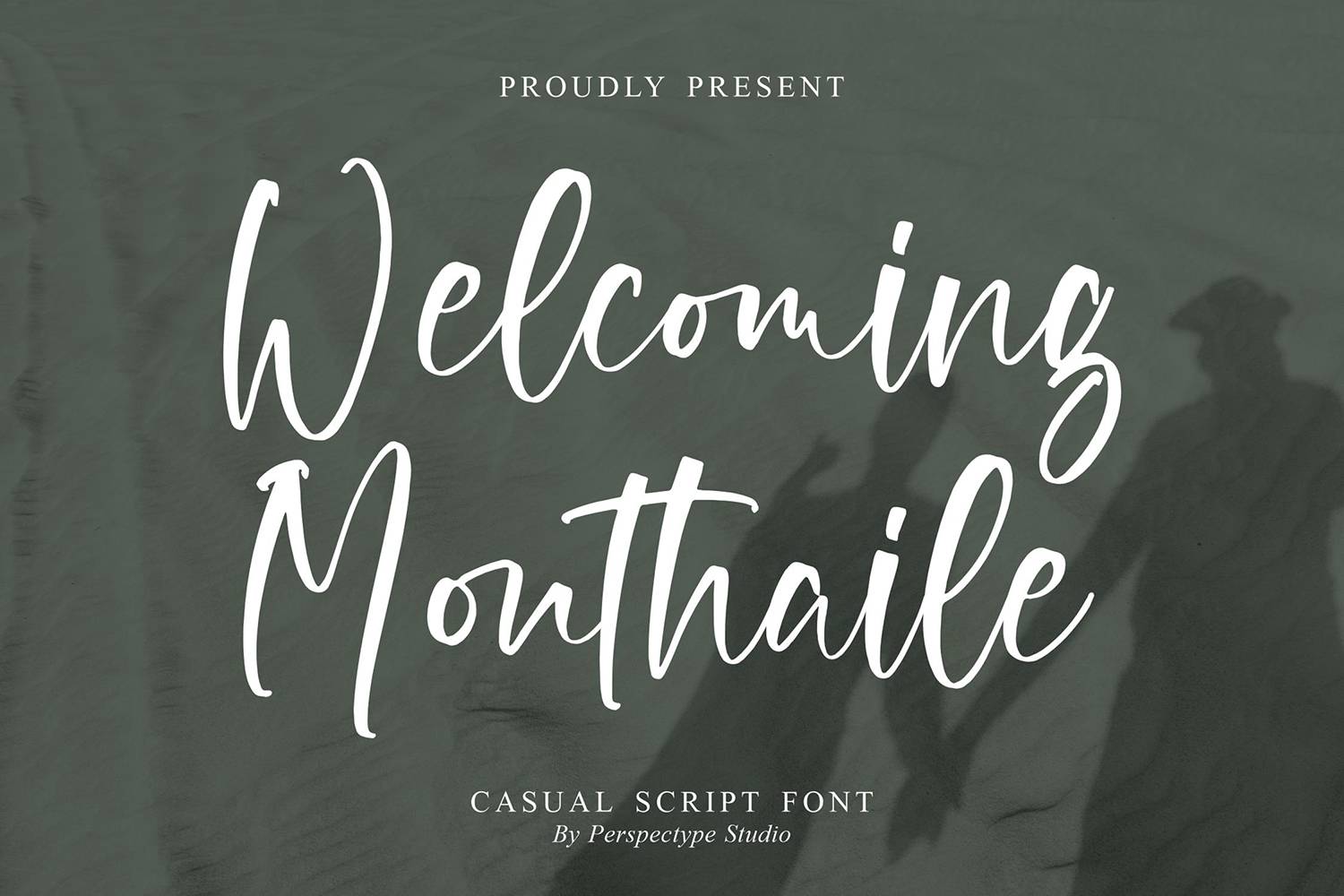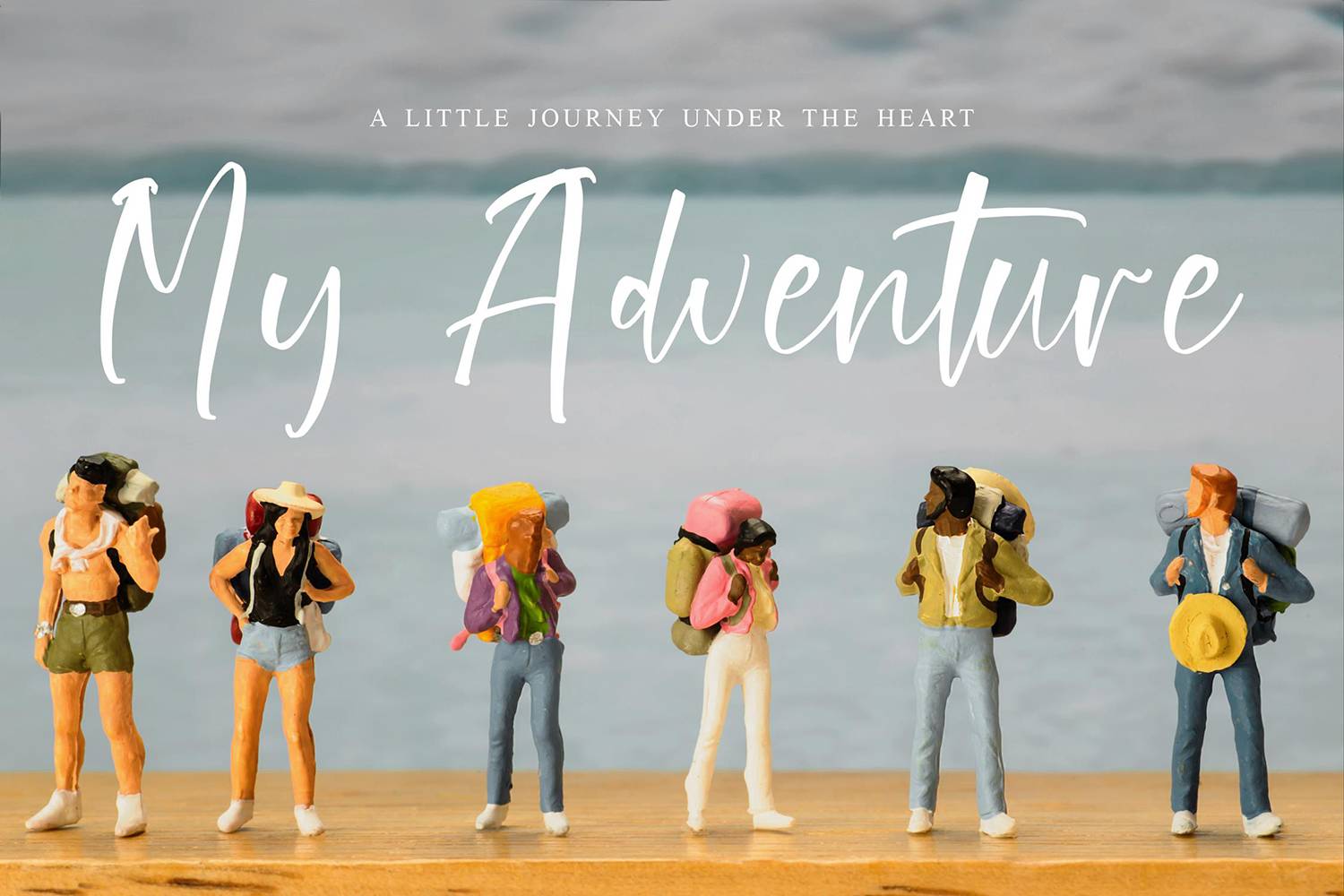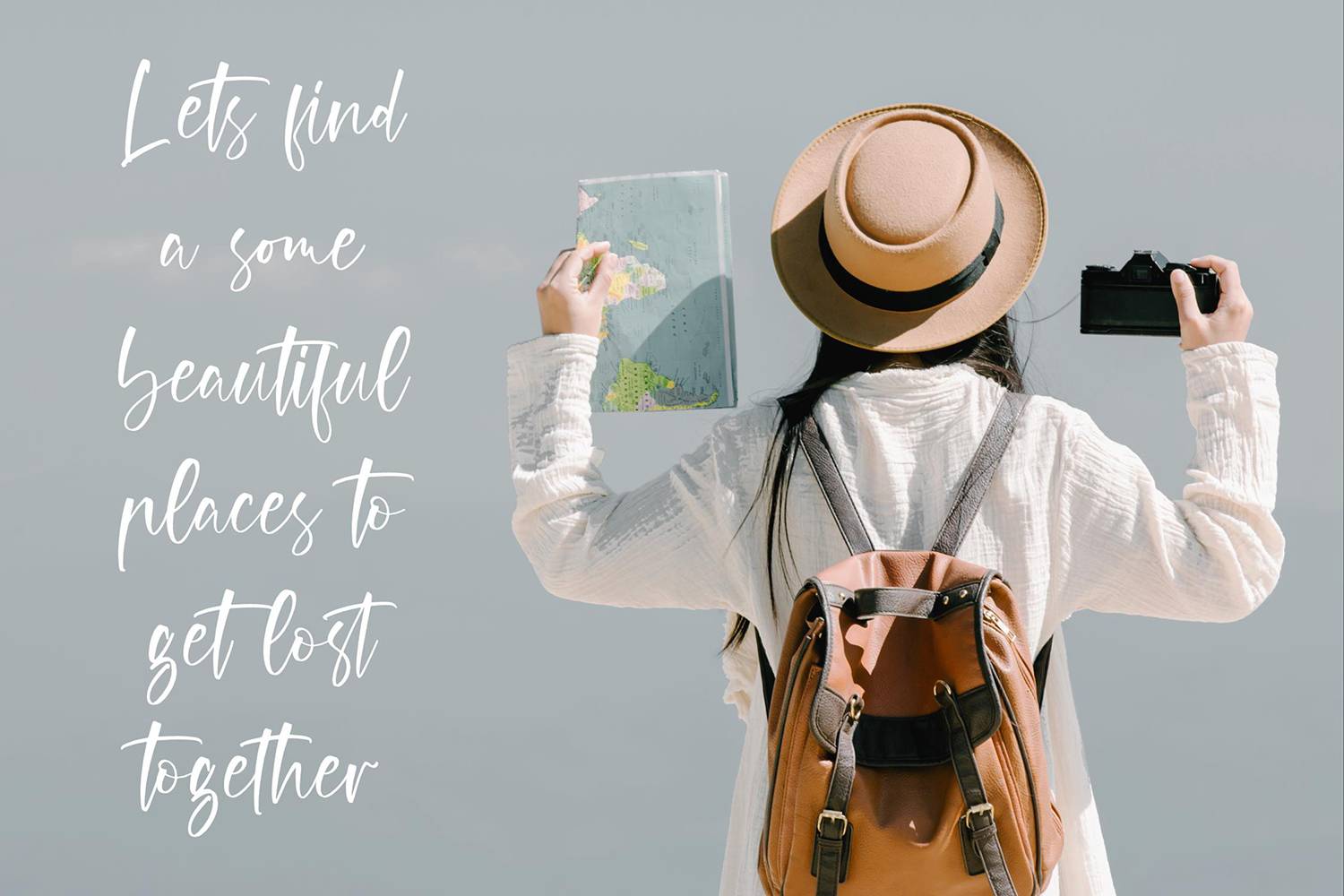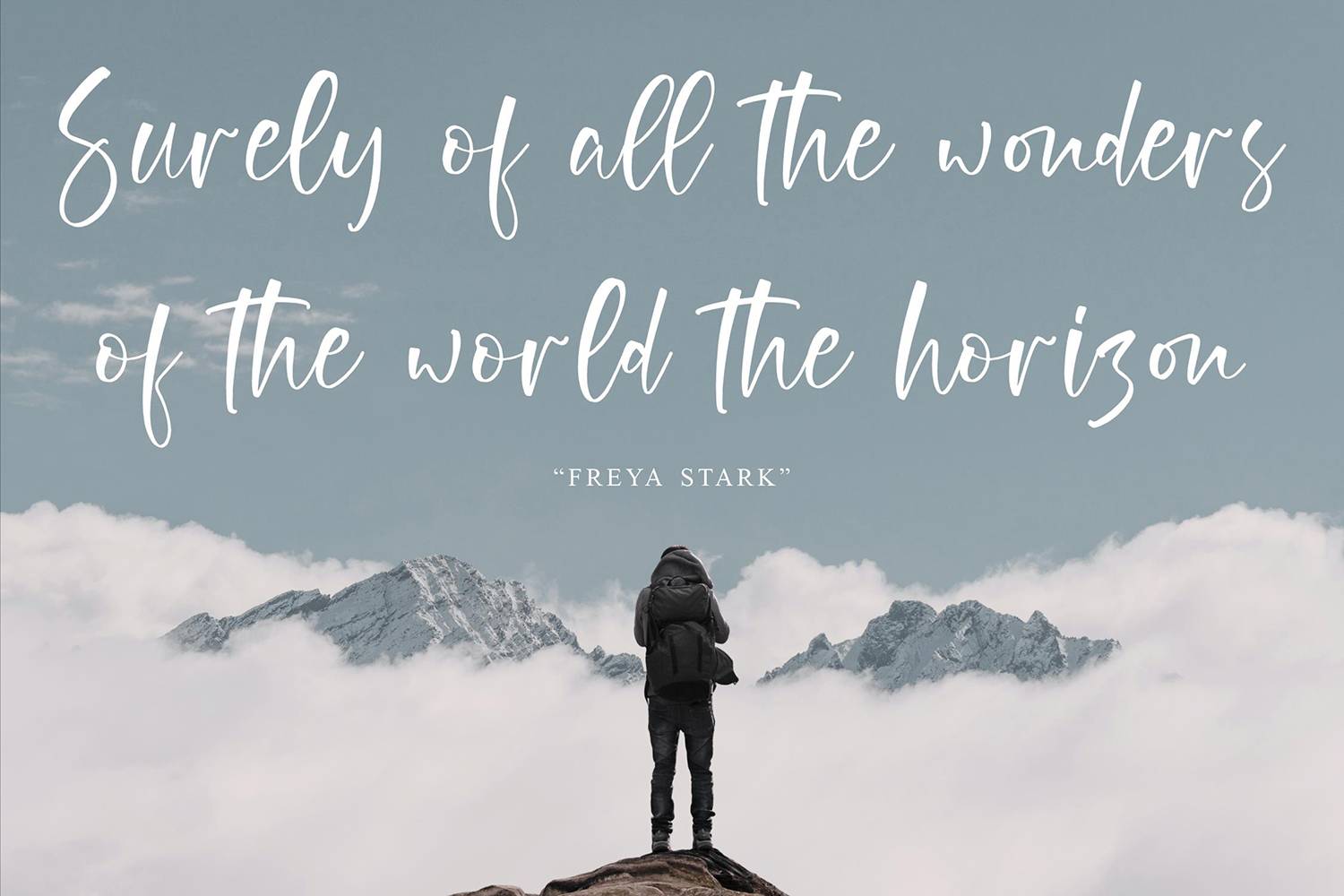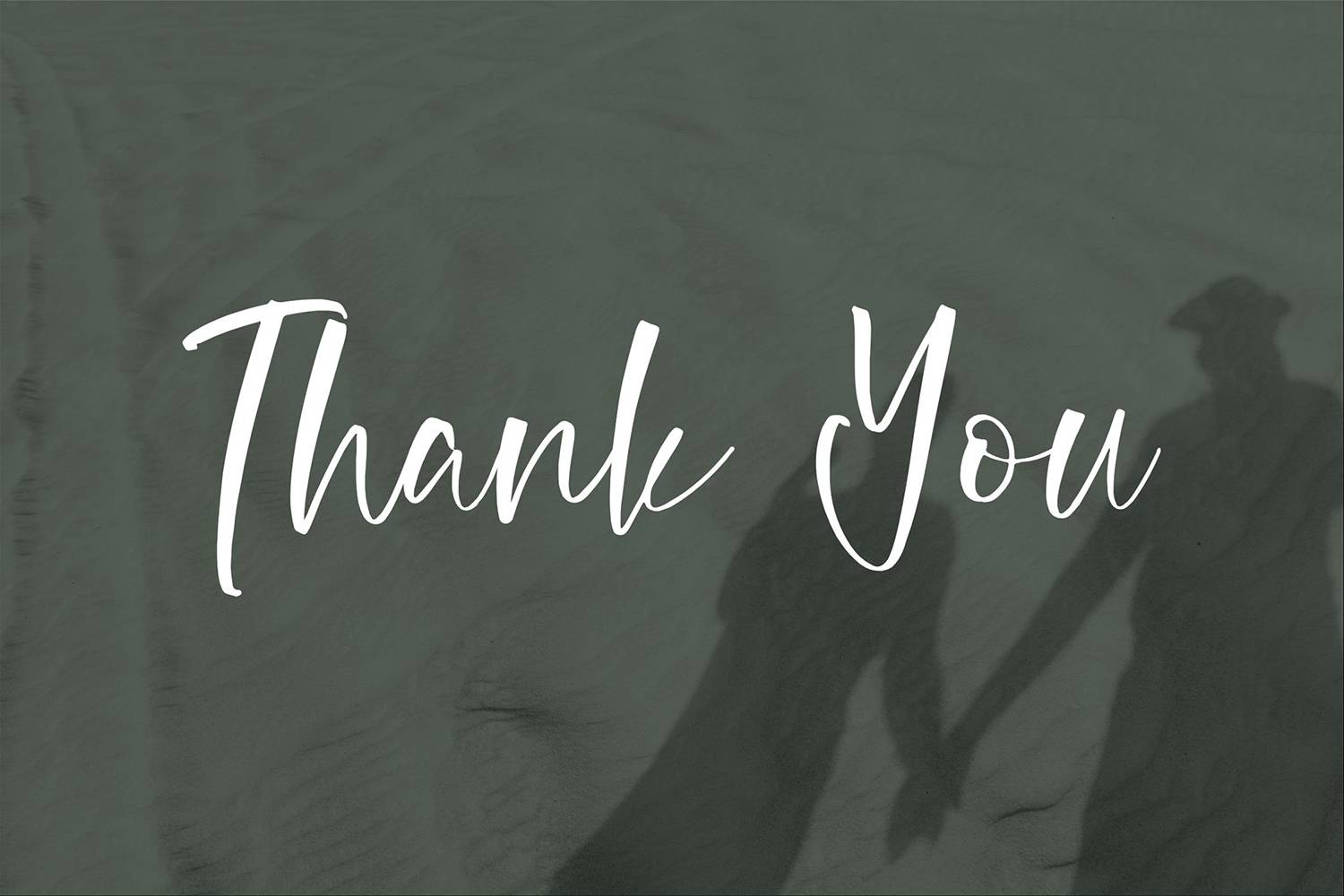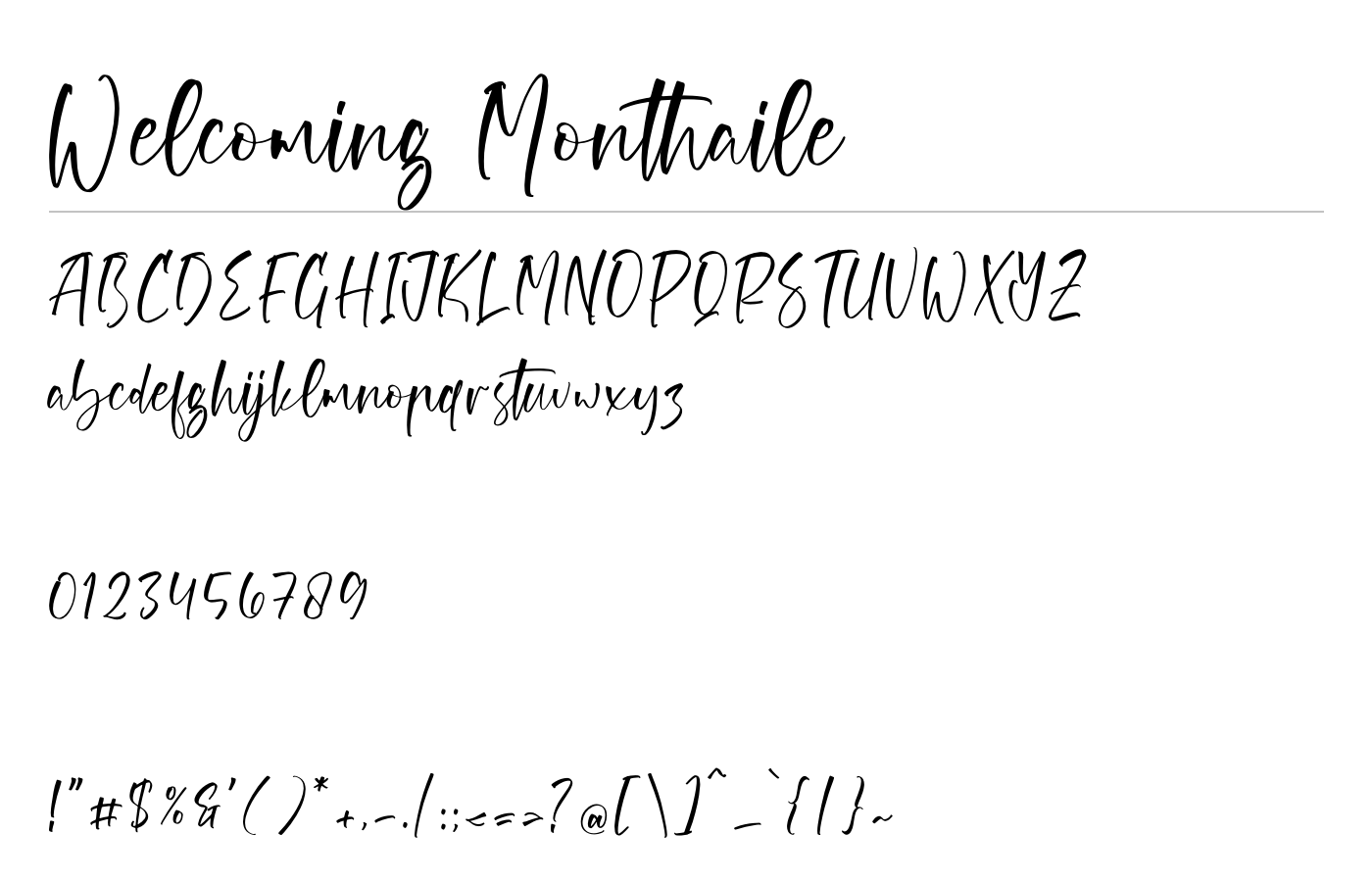
Welcoming Monthaile is a delicate, handwritten script font with a light, airy feel and fluid, slightly irregular strokes that evoke a personal, inviting touch. Its tall, slender letterforms and smooth connections create an elegant yet casual style, perfect for branding, invitations, and creative projects that need a warm, friendly atmosphere. This font works well in headlines or short texts where a natural, personable vibe is desired.
Welcoming Monthaile Font
About Welcoming Monthaile Font